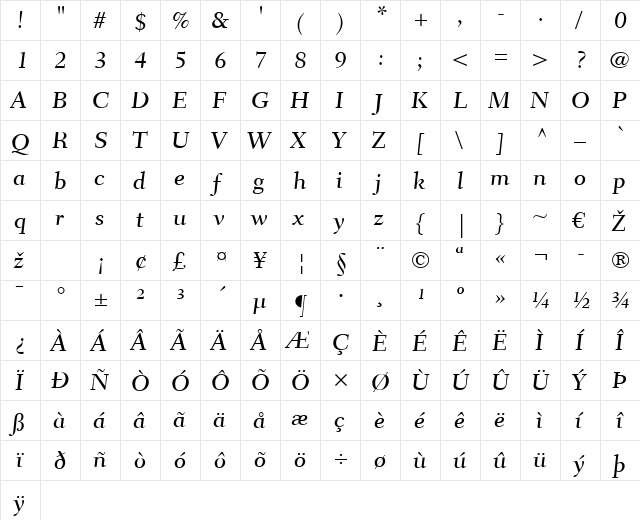
Fairfield LT CaptionMedium Regular
Design Context for Fairfield LT CaptionMedium Typeface
Fairfield LT CaptionMedium takes a measured approach to typography — its balanced proportions and neutral character make it a reliable workhorse for both digital and print work. Its slender proportions lend an understated elegance to any composition.